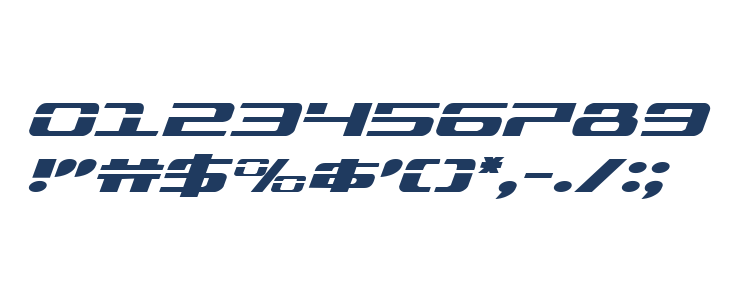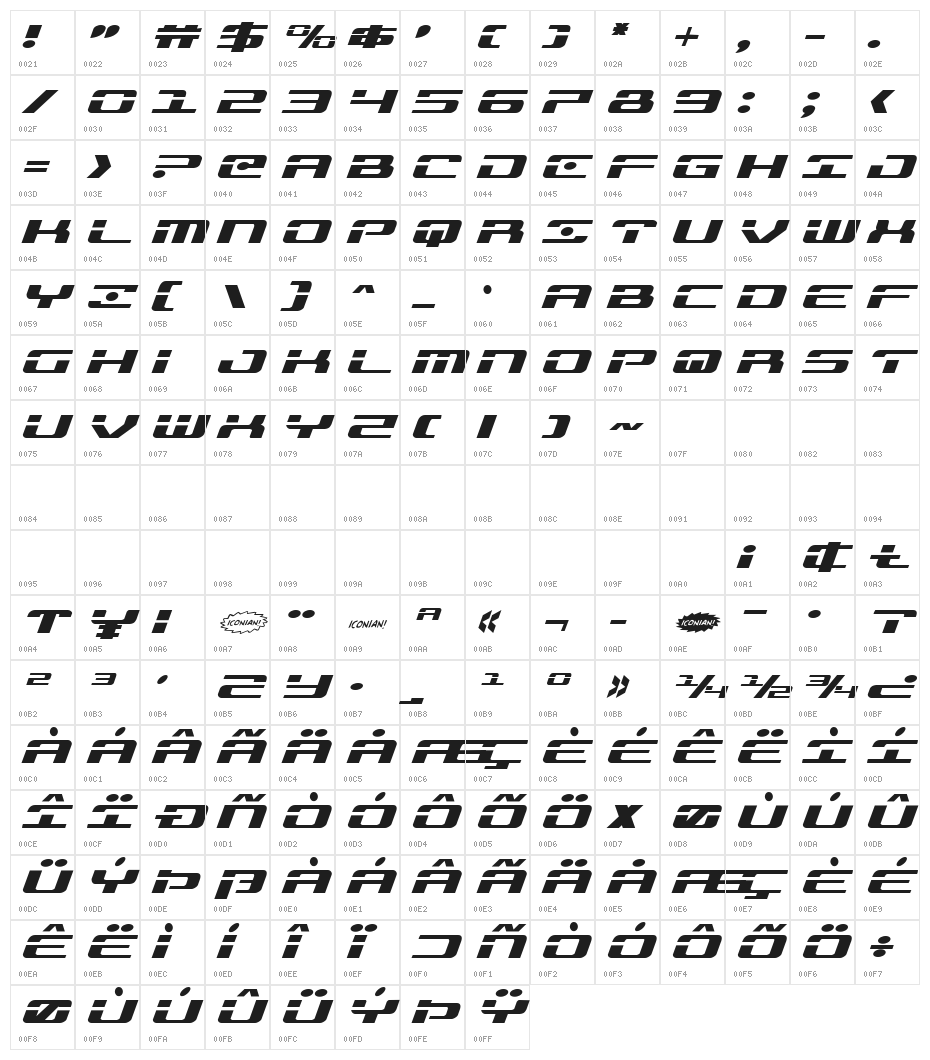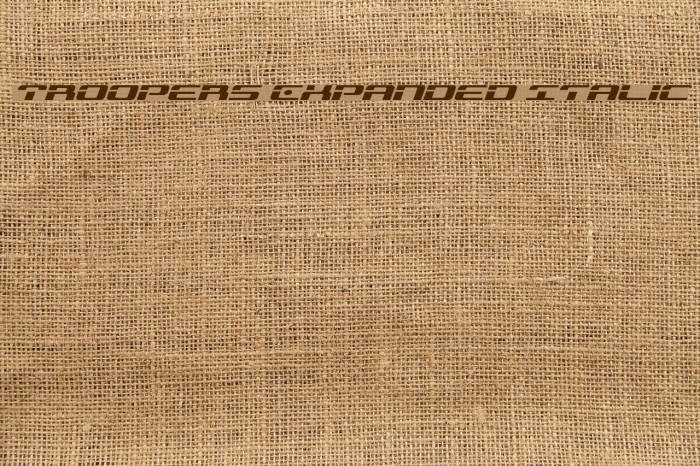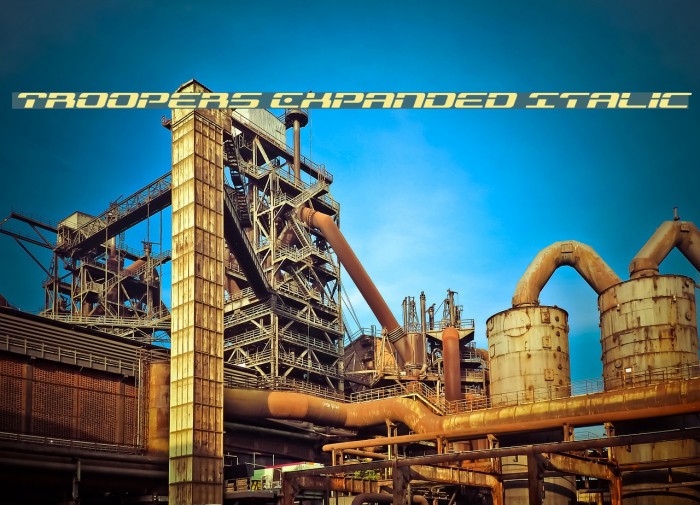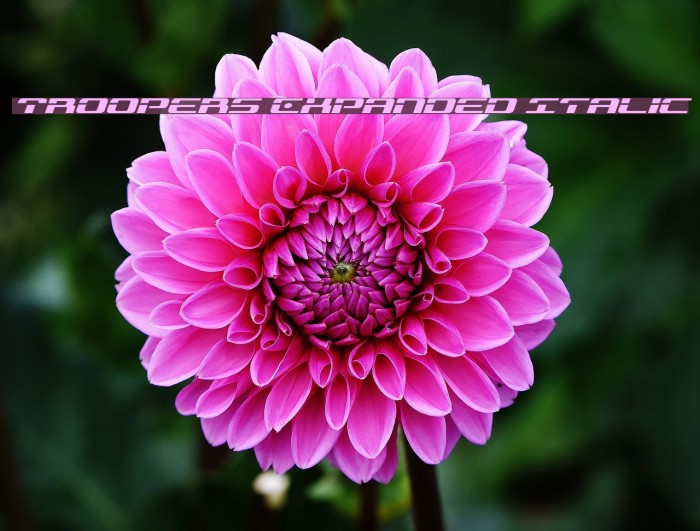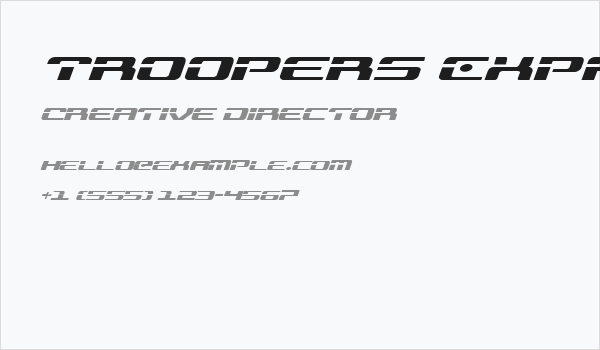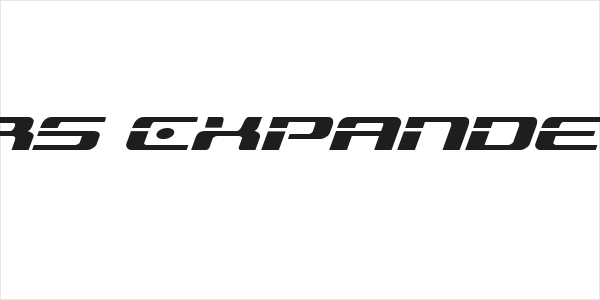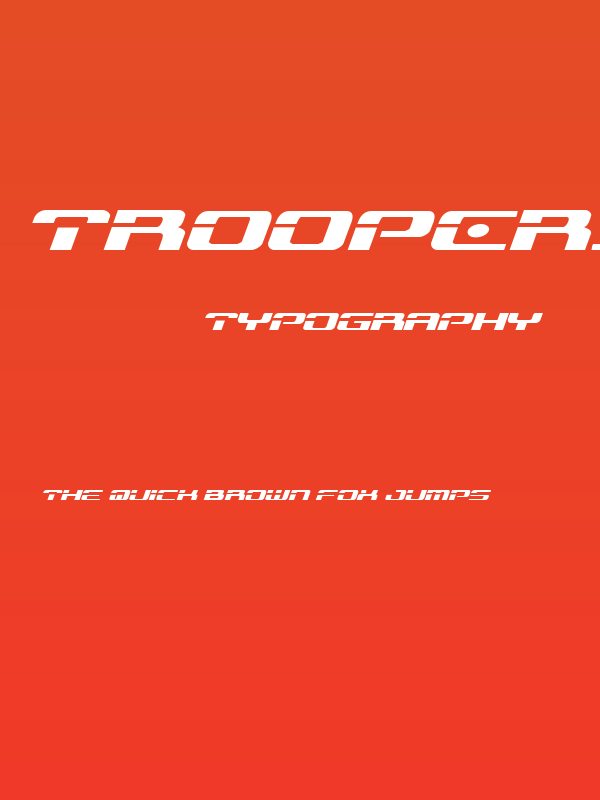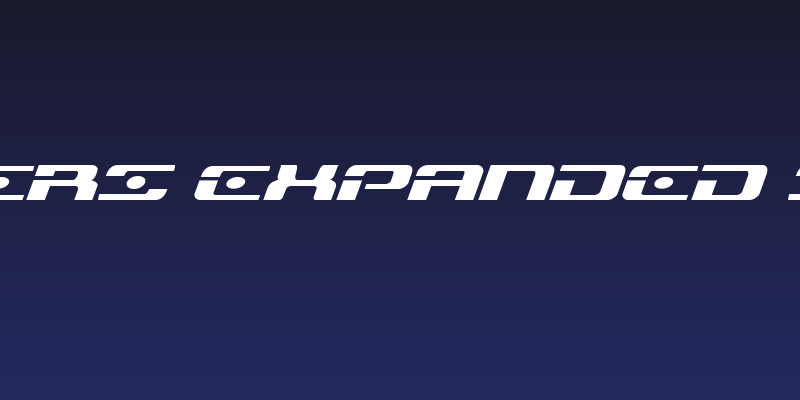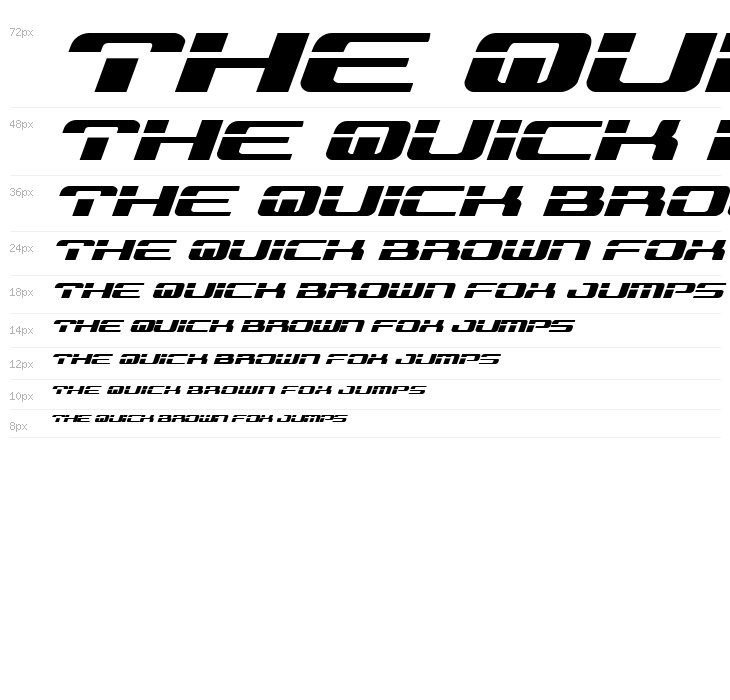
Troopers Expanded Italic Font
Troopers Expanded Italic Description
This font features a futuristic, angular design with a distinctly expanded and italicized style. The characters are bold and dynamic, with sharp edges and a geometric structure that conveys a sense of speed and modernity. The uppercase and lowercase letters maintain a consistent aesthetic, with the lowercase slightly smaller but equally impactful. The numerals and special characters follow the same design principles, ensuring uniformity across all elements. The font's expanded width gives it a commanding presence, making it ideal for attention-grabbing headlines or display purposes.
| Proposed Projects | Ideal for sci-fi themed projects, video game titles, technology branding, or any design requiring a modern, dynamic look. |